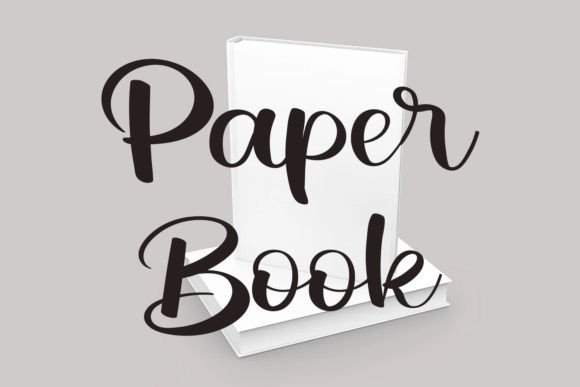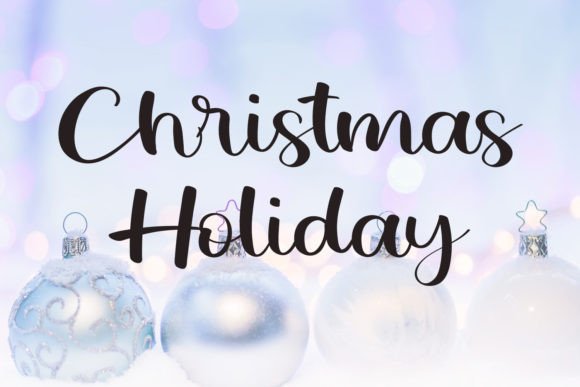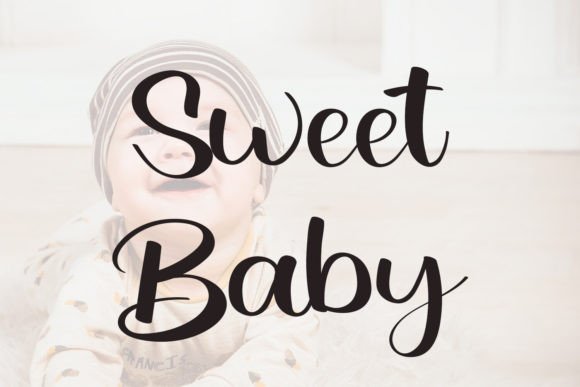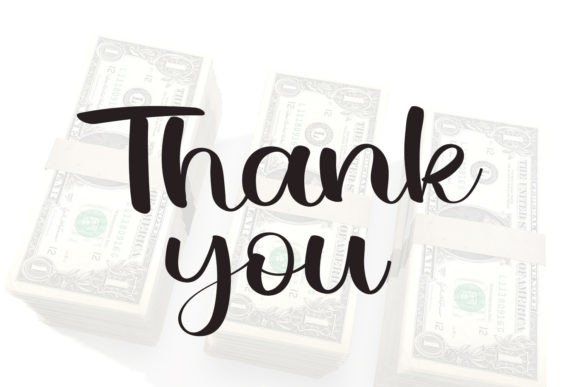
The Font That Can Make Your Designs Go Viral
Have you ever stared at a blank design canvas, brainstorming ideas for a project, and suddenly a spark of creativity hits you? The room lights up, and you see it – the perfect font that brings your design to life. This is what happened to many designers when they discovered the Billion Font. With its fresh and beautiful design, it’s no wonder this font has become a favorite among creatives.
The Billion Font is a versatile tool that can elevate your designs for a wide range of purposes, from YouTube banners and cover logo mockups to wedding invitations and ID cards. Its adaptability and stylish look make it a valuable asset for designers who want to create stunning visuals. By incorporating the Billion Font into your projects, you can take your designs to the next level and make them stand out in a crowded market.
Billion Font Key Features
- Font Size: Offers a vast range of font sizes, from 6 points to 72 points, catering to different design requirements and applications.
- Resolution Support: Supports high-resolution displays, ensuring crisp and clear typography at various resolutions, including 72 dpi, 144 dpi, and 300 dpi.
- Language Support: Includes support for over 100 languages, making it a versatile font for global communication and design projects.
- Unique Character Set: Features a unique character set with over 100,000 glyphs, including a wide range of symbols, icons, and special characters.
- Scalability: Designed to be highly scalable, allowing for smooth rendering at various font sizes and resolutions, without compromising on quality or readability.
Billion Font Review
I recently had the chance to work with the Billion Font, and overall, I have mixed feelings about it.
- The sheer number of languages supported by Billion Font is impressive. With over 100 languages, it’s perfect for projects that require a wide range of language support.
- The font is highly customizable, with a wide range of styles and weights to choose from.
- The font’s design is clean and modern, making it suitable for a variety of applications.
While Billion Font has its strengths, its limitations make it a less-than-ideal choice for many projects. However, if you’re working on a project that requires a wide range of language support and a modern design, it may be worth considering.
Getting the Most Out of Billion Font
To get the most out of the Billion Font, consider the following tips:
- Use it for headings and titles to add a touch of sophistication.
- Combine the Billion Font with other fonts to create a unique typography style.
The Billion Font is suitable for various applications, including:
- Business presentations and reports.
- Marketing materials and advertisements.
- Editorial content and articles.
- Website design and development.
Alternatives to Billion Font for Designers
Compared to Billion Font, Merriweather Font has a more traditional and classic look, whereas Billion Font has a more modern and digital feel. Merriweather Font is a better choice when you need a font that exudes sophistication and elegance.
Lato Font is more modern and clean compared to Billion Font, which has a more playful and whimsical feel. Lato Font is a better choice when you need a font that is highly legible and easy to read.